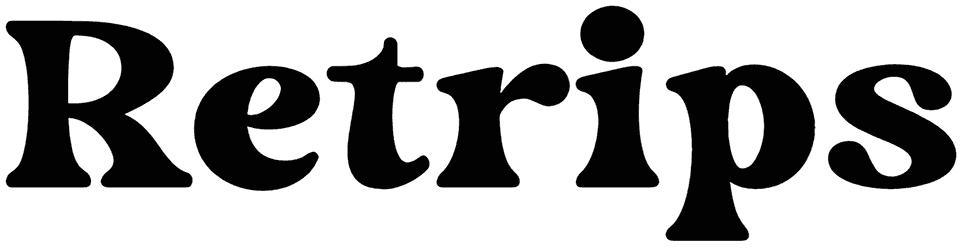
Retrips Font
Retrips is a simple font that helps artistic people use all their creativity to choose background images and paired fonts. This serif font has a rugged and classic look that creates a powerful atmosphere and can convey your messages through printed texts, sports posters, and authentic logos.